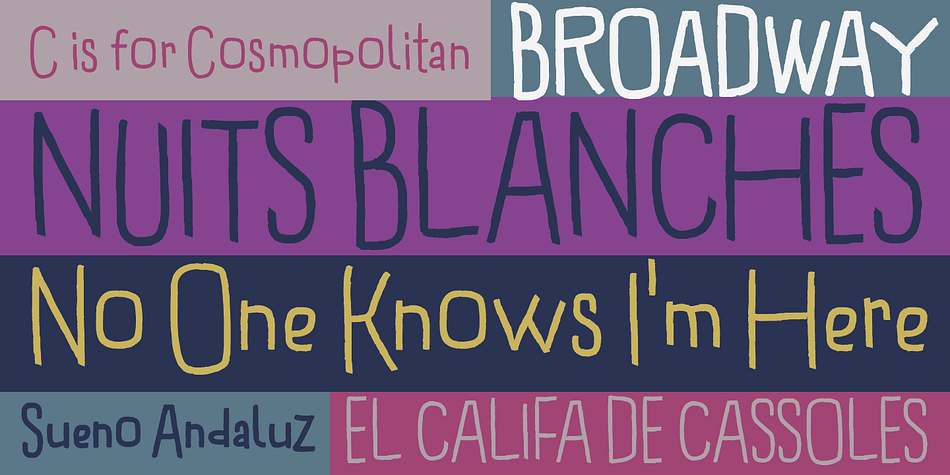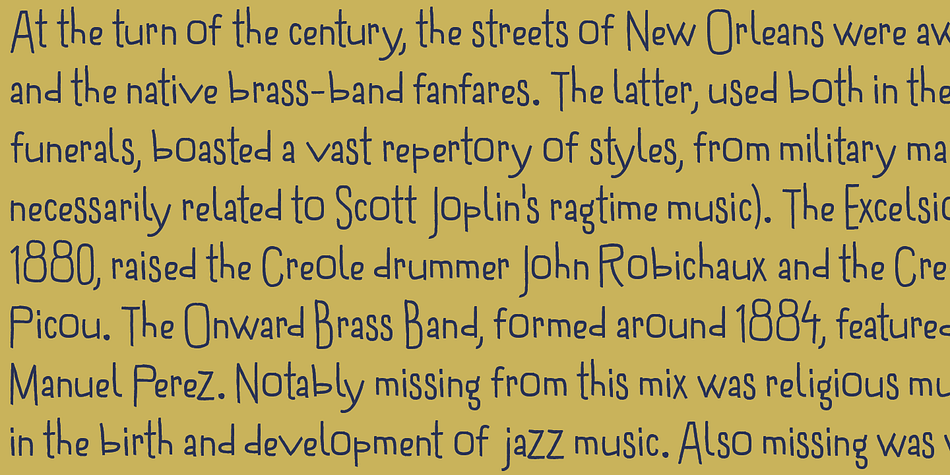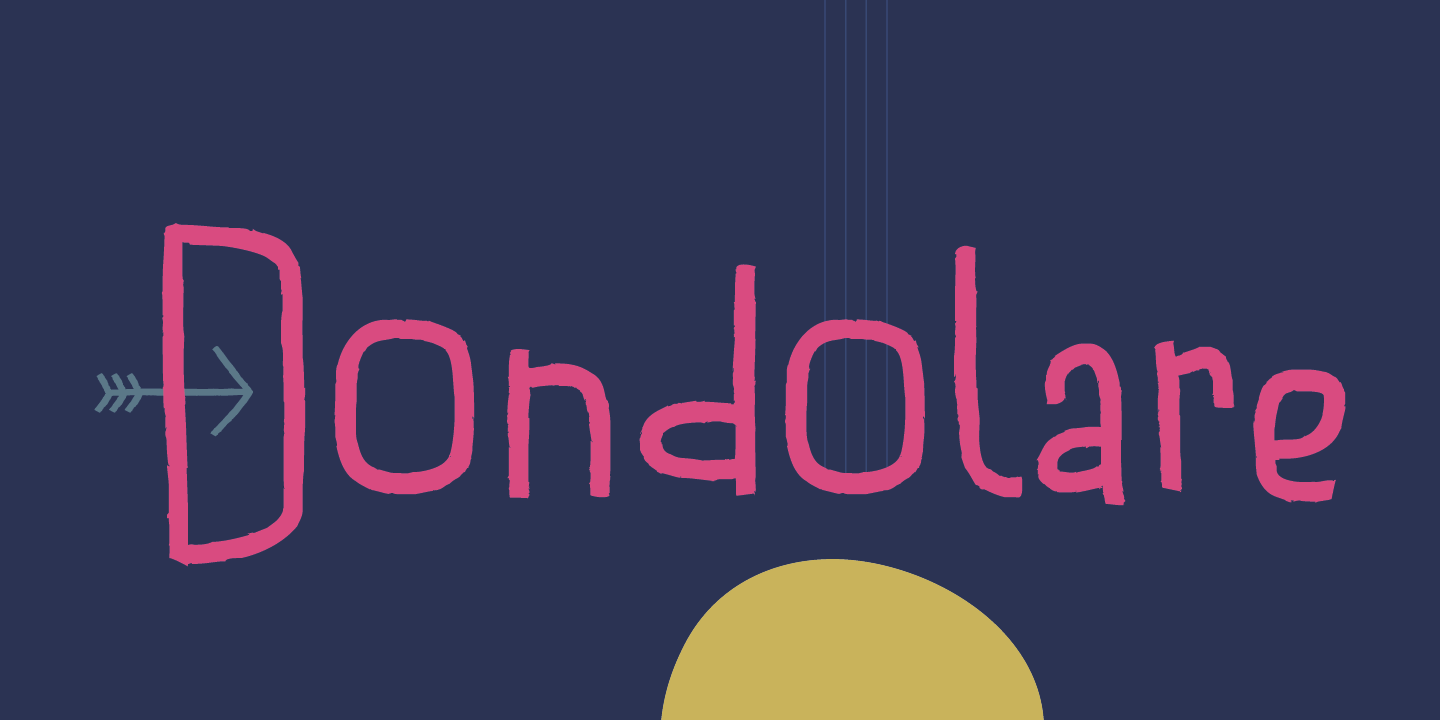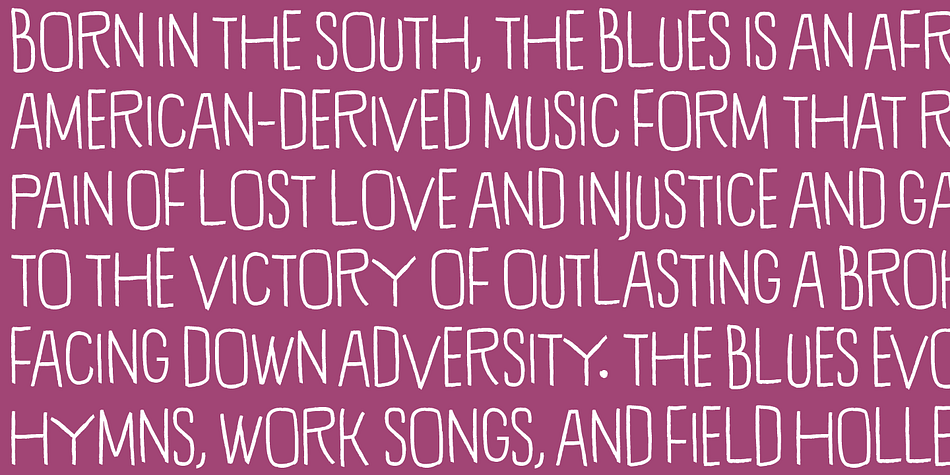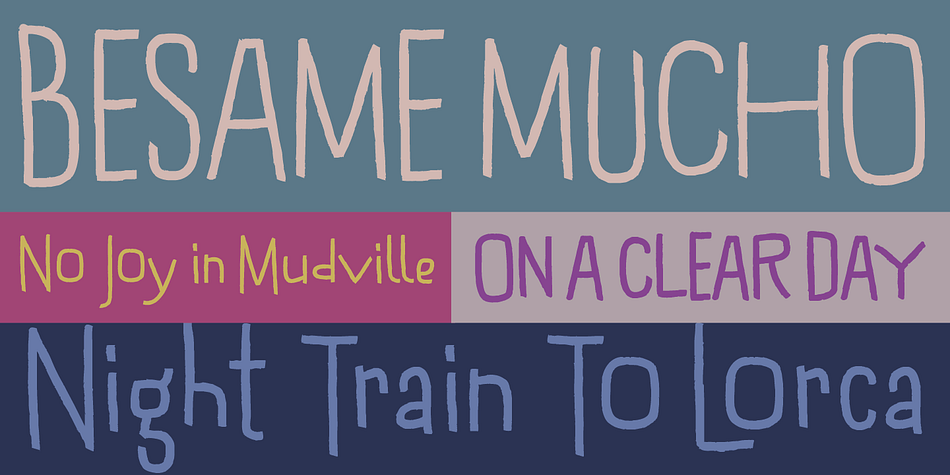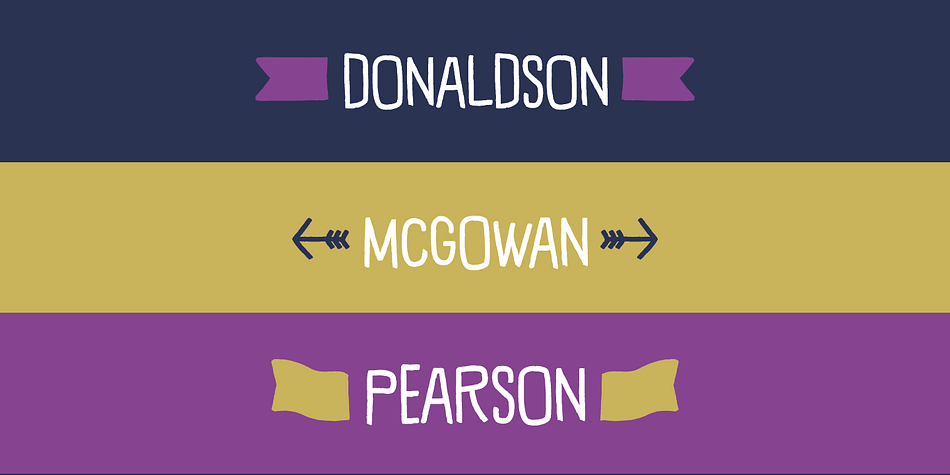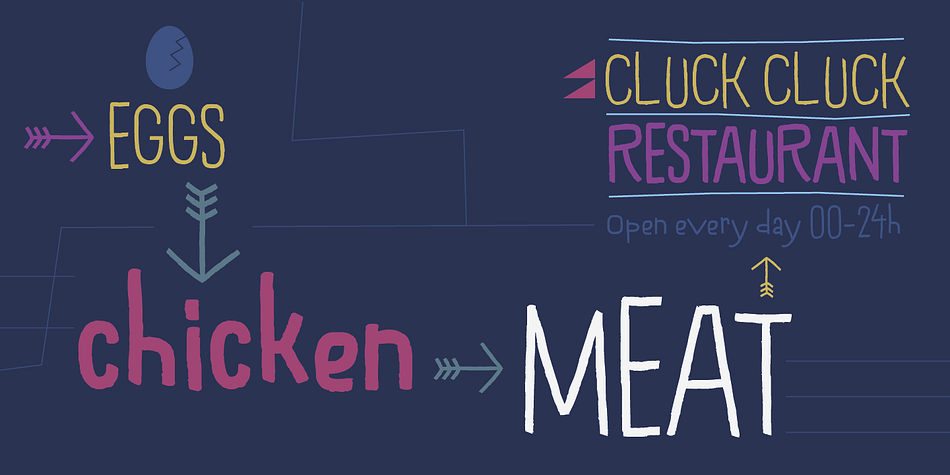
Dondolare is a hand drawn and kids font family. This typeface has two styles and was published by Tour de Force Font Foundry.
Dondolare is simple hand-drawn font family. Squarish looking and ready for typography cooking, comes in 2 weights with support for extended Latin character set.